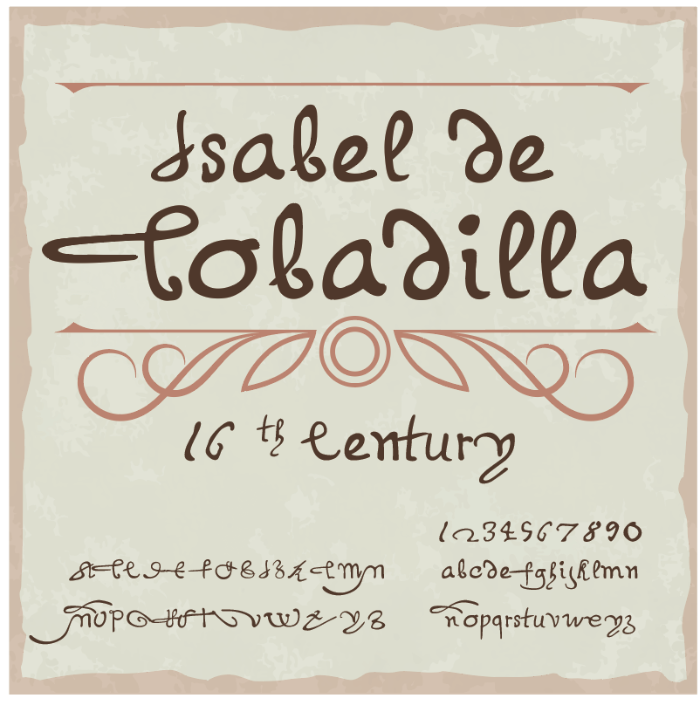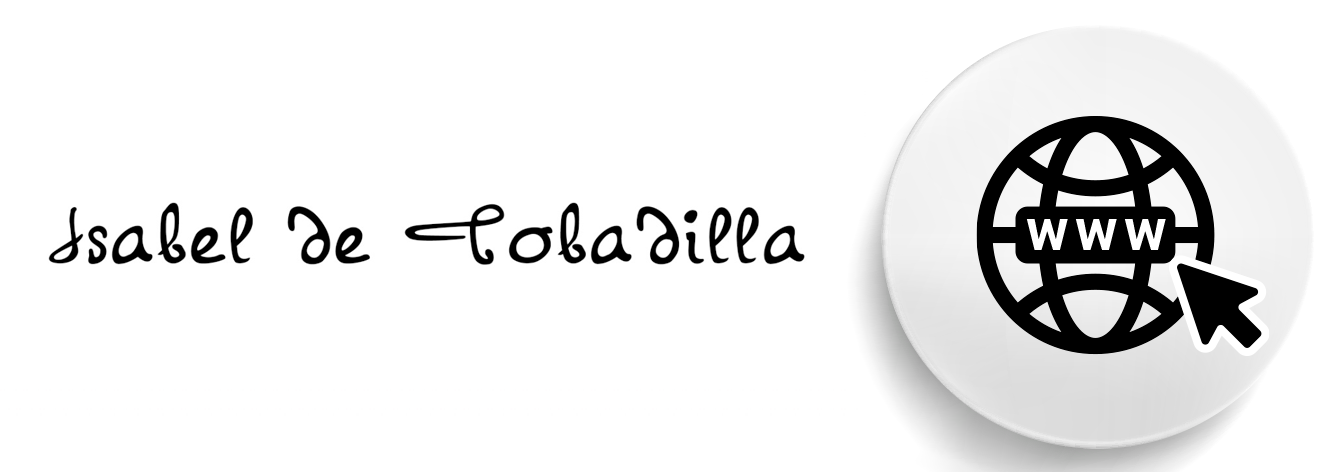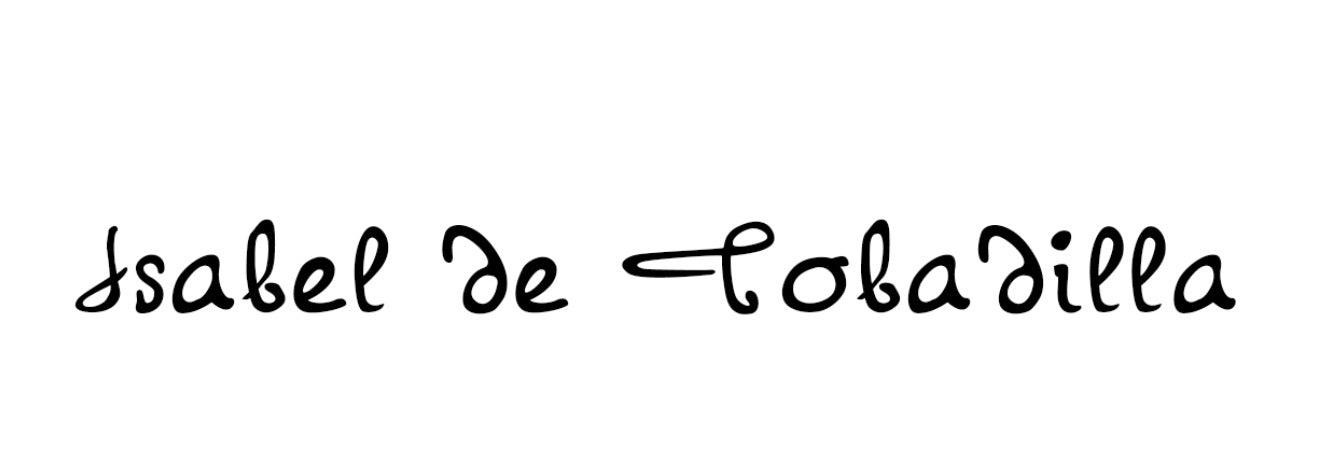
The daughter of Spanish conquistador and administrator Pedro Arias de Ávila (Pedrarias Dávila), doña Isabel de Bobadilla’s remarkable life is often overshadowed by the exploits of her father and her husband. In 1536, doña Isabel married Hernando de Soto, a veteran of Francisco Pizarro’s conquest expedition to Peru. Three years later, doña Isabel accompanied Soto to Cuba, from where he launched his failed expedition to conquer and settle Florida.
In her husband’s absence, Bobadilla served as Cuba’s governor between 1539-1543. Shortly after her husband’s death, doña Isabel initiated a lengthy legal dispute against her husband’s long-time business partner, Hernán Ponce de León. The dispute lasted for more than a decade and generated more 3,700 pages of records, providing unique insight into the life of Cuba’s first female governor.
The Isabel de Bobadilla font was inspired by this protracted legal dispute, with the letters coming from the various scribes who recorded its details.
The shape and size of the letters found in historical documents varied widely. As such, the spacing for these authentically historical fonts also fluctuates from style to style, with many of the letters extending beyond one or two lines. For best results, we recommend double spacing when using these fonts.